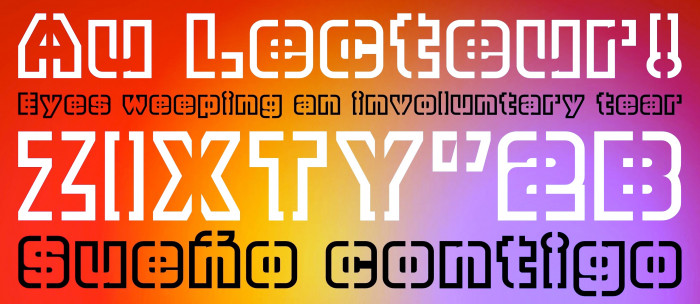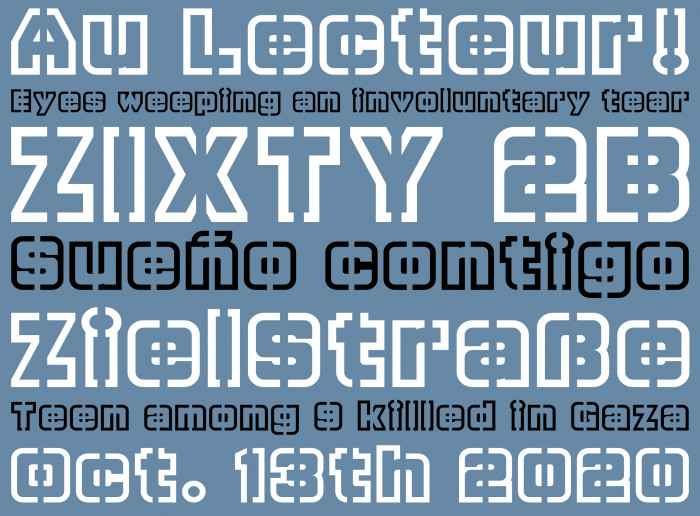
Wow! Hope this becomes a TP.
Excellent outline font. This could be fun to try out with a stencil and a spraycan. Should the bridges on t be centered like they are in the other letters?
Apologies, they are actually in one line; my eyes are playing tricks on me...
@elmoyenique - As much as I love this (and I do), I'm even more curious to see this cloned as a fully solid outline font with no missing bits !  :^)
@four: Thank you very much for your kind comments, dear compañero. I was thinking about the idea with the spray for a sample, but it was difficult to solve.
@Goatmeal: Thanks a lot! About the solid version, I could try it (but the first idea was to cut the glyphs).
Oops! Fixed the "y".
@elmoyenique - The cut-outs are superb, but completing the gaps in a clone would complement this wonderful design, too.  :^)
Congratulations! FontStruct Staff have deemed your FontStruction worthy of special mention. “zixty2b eYe/FS” is now a Top Pick.